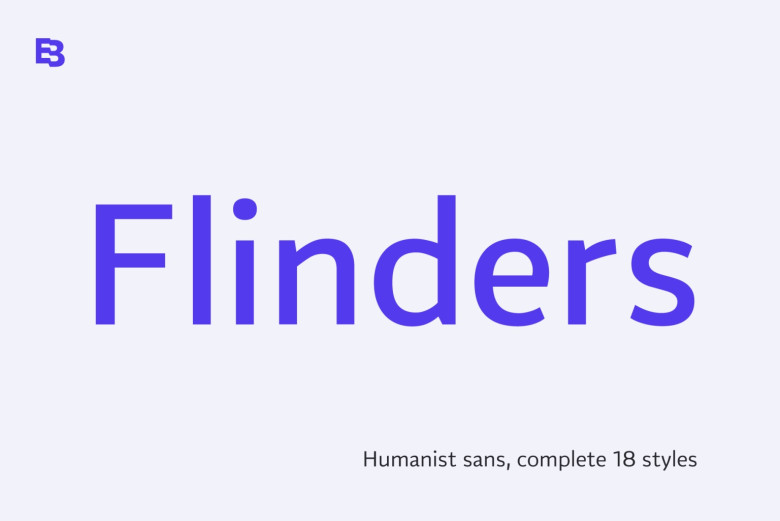
Flinders Font Family
Flinders Font
Flinders is a humanist sans serif font family designed by Eko Bimantara released in 2023. Flinders was designed for various reading purposes; its text optimize letterforms focuses on legibility and ease of reading. The styles tend to be a sans serif intepretation of classical roman proportions.
It characterized by low x-height, subtle sense of calligraphic strokes, angled stroke ends and open counters and apertures. Flinders is suitable for non-industrial theme, yet it is compatible for various design needs wether for big display sizes or small sizes.
Flinders Sans Serif Font Family